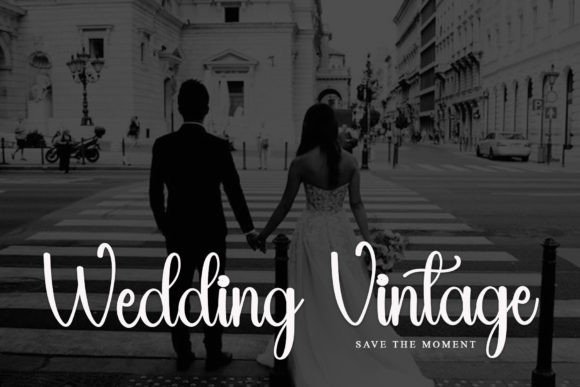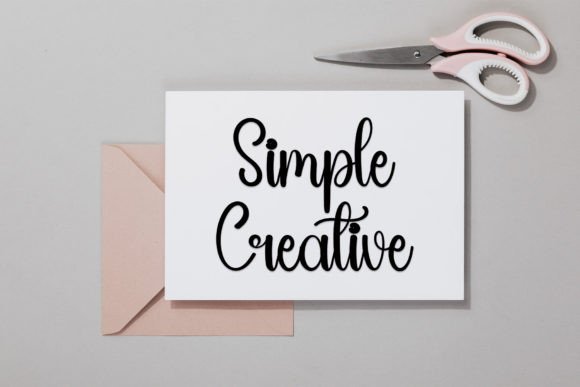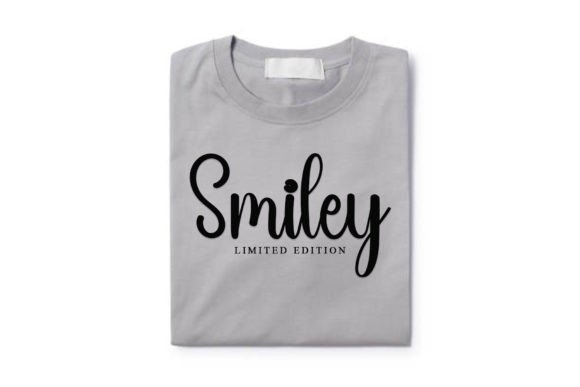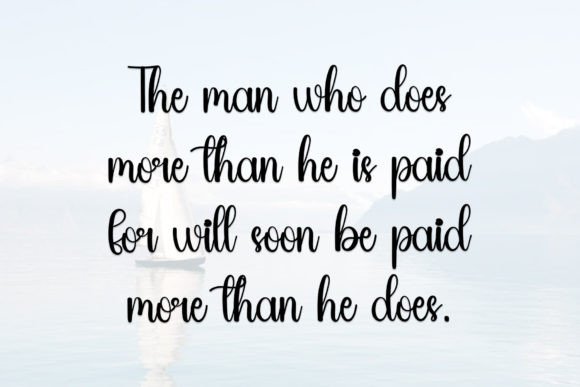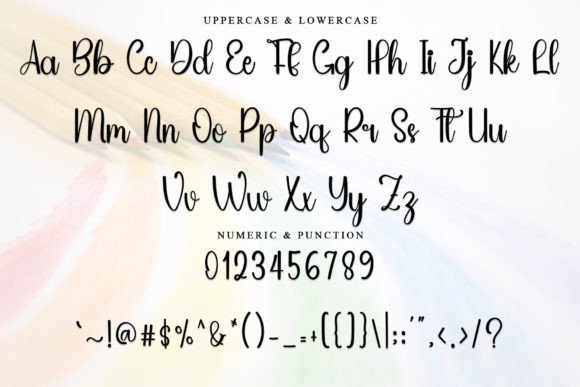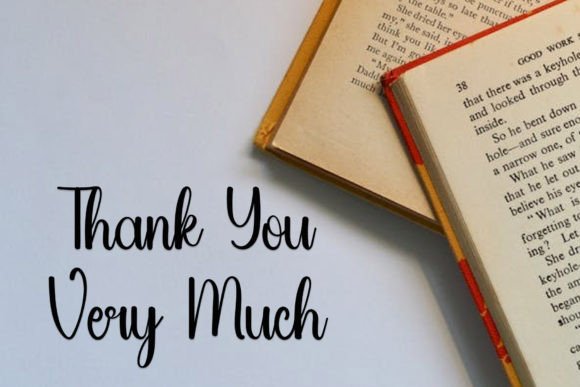
Introducing Daylight Font: Elevate Your Designs with Elegance
Are you a designer or crafter looking for a font that exudes style and sophistication? Look no further than Daylight Font, a stunning handwritten font that adds a touch of elegance to any design. In this article, we’ll explore the features and benefits of Daylight Font, and how it can elevate your designs to the next level.
What is Daylight Font?
Daylight Font is a beautifully crafted handwritten font that is perfect for designs that require a personal and elegant touch. With its flowing script and delicate strokes, Daylight Font is ideal for a wide range of applications, including wedding invitations, thank you cards, quotes, greeting cards, logos, business cards, and more.
Key Features of Daylight Font
- Stylish and Elegant: Daylight Font boasts a stylish and elegant design that is sure to impress. Its unique script and refined strokes make it perfect for designs that require a touch of sophistication.
- Handwritten Touch: Daylight Font has a genuine handwritten feel that adds a personal touch to any design. Its subtle imperfections and varying line widths give it a warm and organic look.
- Versatile: Daylight Font is incredibly versatile and can be used for a wide range of designs, from wedding invitations and greeting cards to logos and business cards.
- Easy to Read: Despite its elegant design, Daylight Font is easy to read and understand, making it perfect for designs that require a clear and concise message.
Benefits of Using Daylight Font
- Adds a Personal Touch: Daylight Font’s handwritten design adds a personal touch to any design, making it perfect for special occasions and events.
How to Use Daylight Font
- Use it for Headings and Titles: Daylight Font is perfect for headings and titles, where its elegant design can really shine.
In conclusion, Daylight Font is a stunning handwritten font that adds a touch of elegance and sophistication to any design. With its flowing script, delicate strokes, and genuine handwritten feel, Daylight Font is perfect for designers and crafters looking to elevate their designs to the next level. Whether you’re creating wedding invitations, greeting cards, logos, or business cards, Daylight Font is sure to impress.